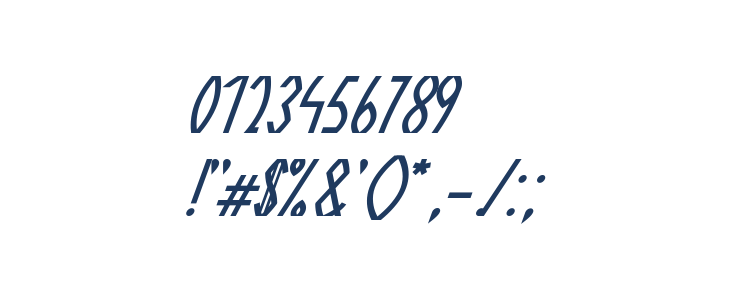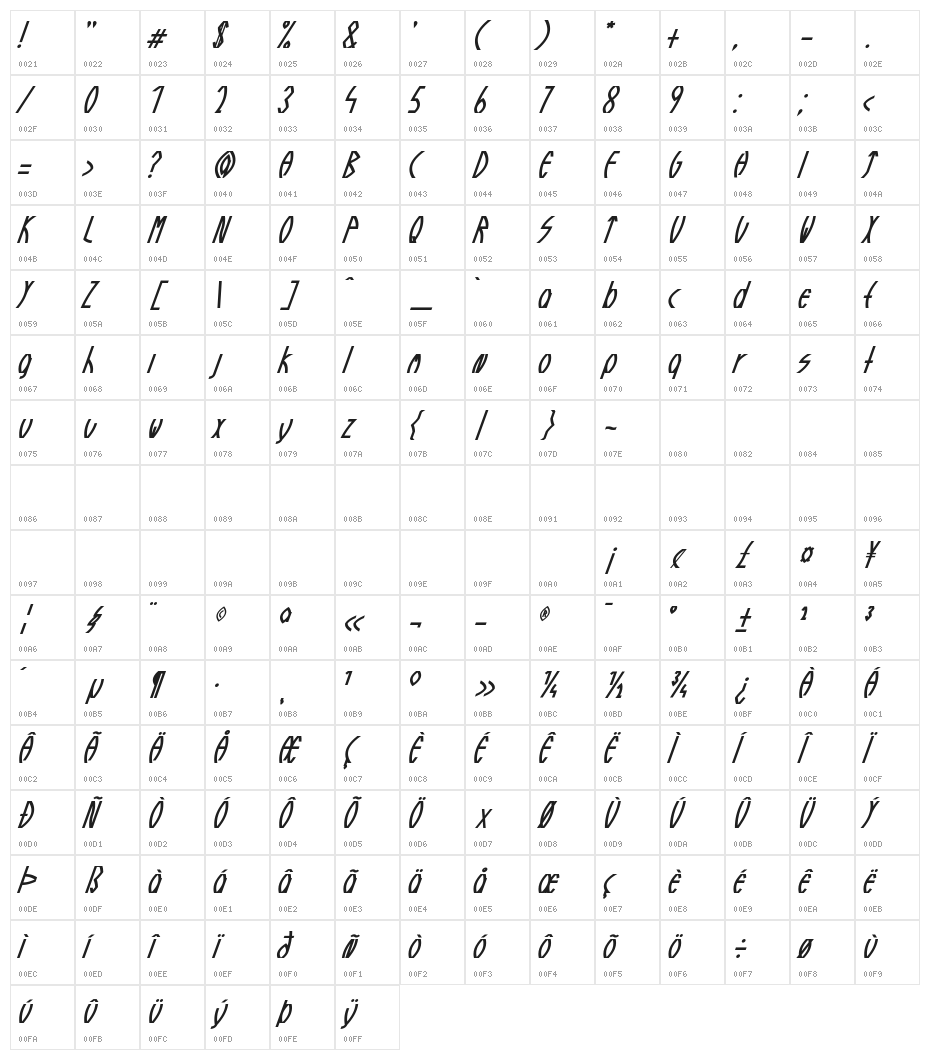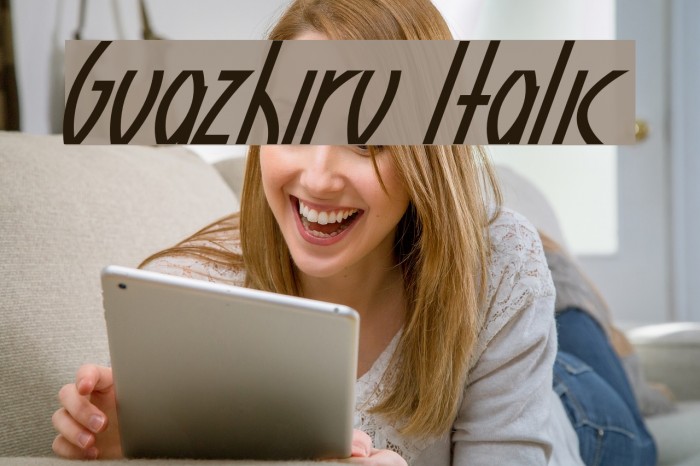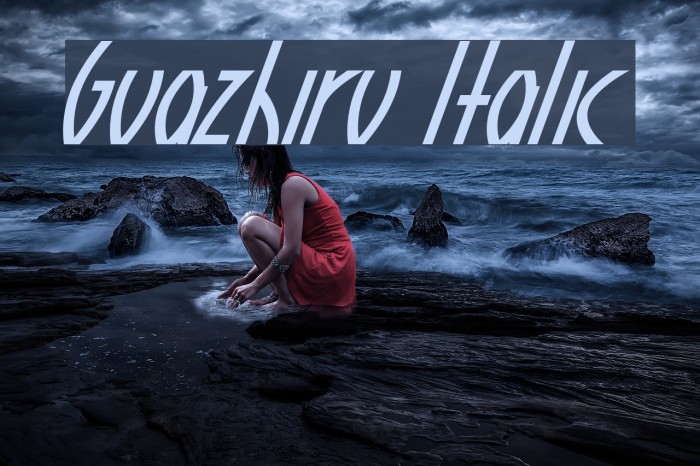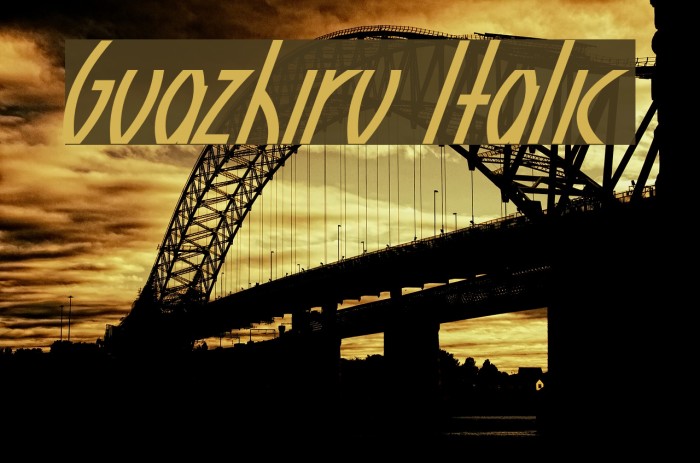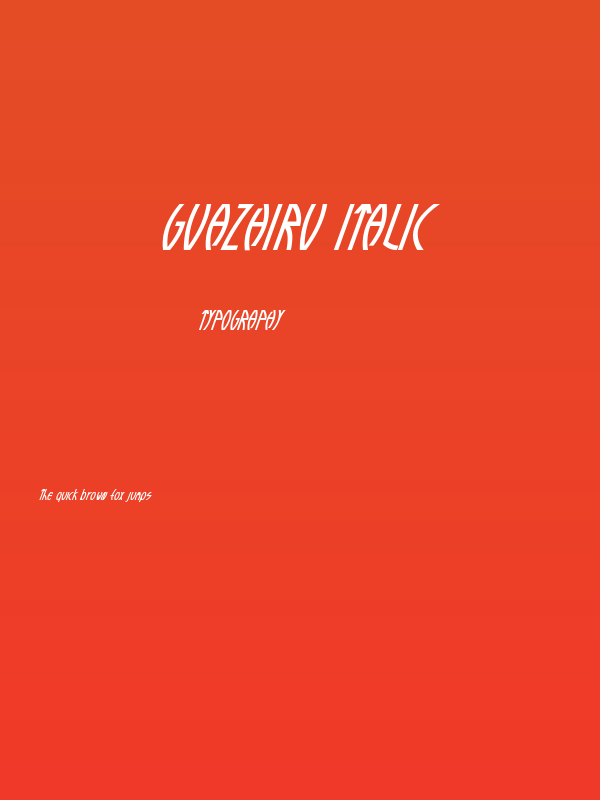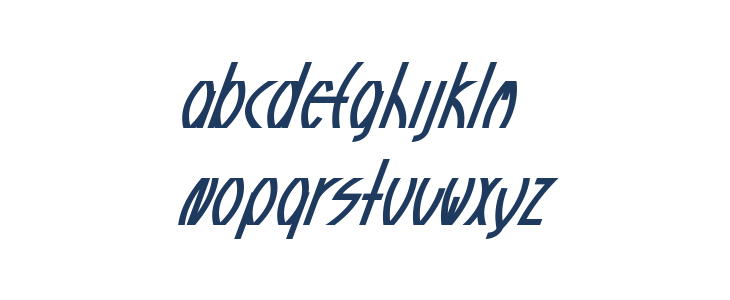
Guazhiru Italic Font
Guazhiru Italic Description
This font features a dynamic and angular design, characterized by its italicized and slanted letterforms. The strokes are bold and sharp, giving it a sense of movement and energy. The uppercase letters are tall and narrow, while the lowercase letters maintain a consistent slant, enhancing the font's cohesive appearance. The numbers and special characters follow the same stylistic approach, ensuring uniformity across all glyphs. This font's unique style makes it stand out, suitable for projects that require a bold and modern aesthetic.
Proposed ProjectsIdeal for branding, posters, and headlines that require a modern and energetic look.